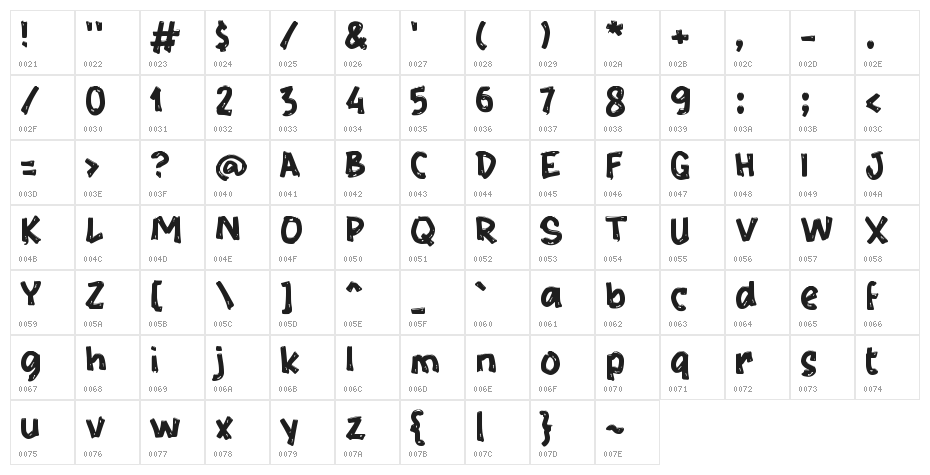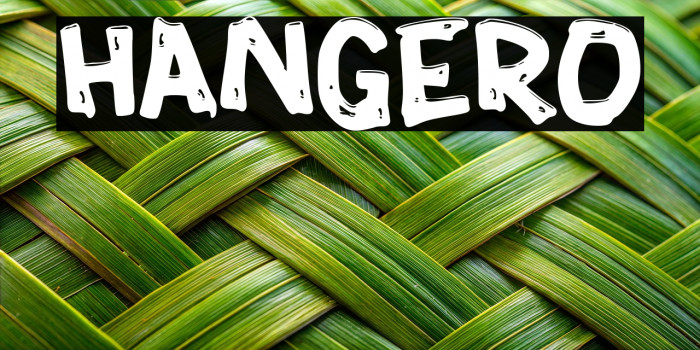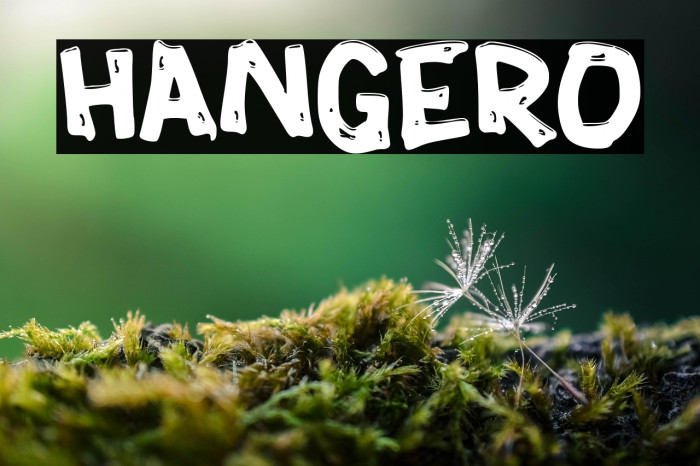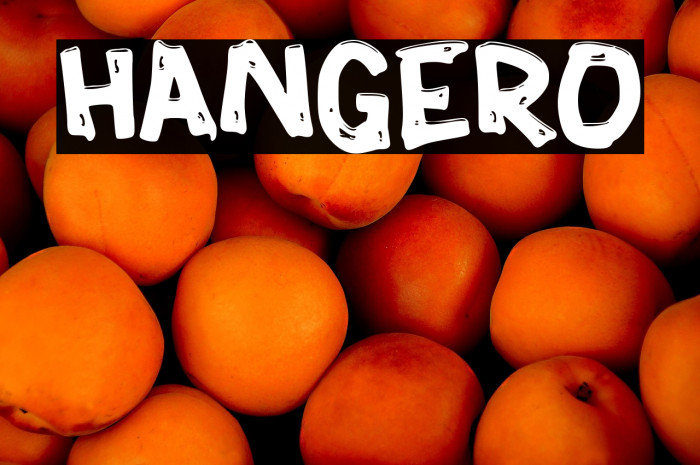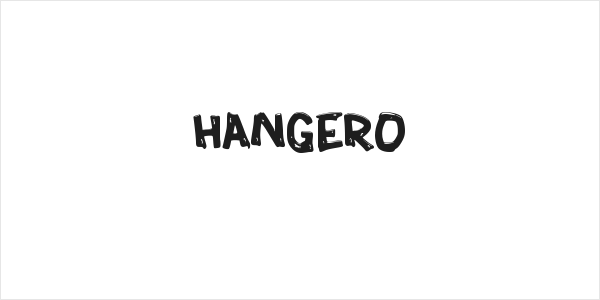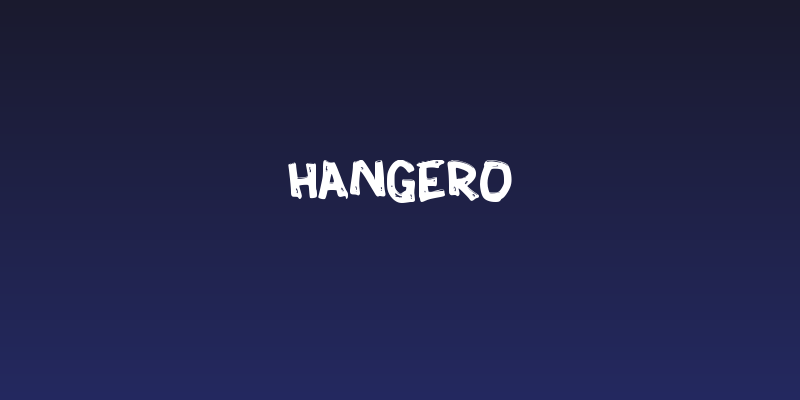
HANGERO Font
HANGERO Description
This font features a playful and bold style with a hand-drawn appearance. The characters are thick and rounded, giving them a cartoonish and informal look. The strokes are uneven, adding to the whimsical and casual feel. Each letter has a unique, slightly irregular shape, contributing to its lively and dynamic personality. The font is highly legible, with clear distinctions between each character, making it suitable for eye-catching designs. The numbers and special characters maintain the same playful style, ensuring consistency across all elements.
| Proposed Projects | Ideal for children's books, comic strips, playful branding, and informal event invitations. |